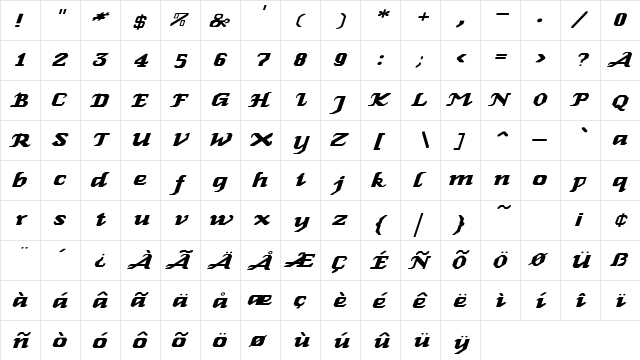
GenoaItalic-Wd Normal
Design Context for GenoaItalic-Wd Typeface
GenoaItalic-Wd is a composed and adaptable typeface that performs quietly and consistently across a wide range of design contexts. The dynamic lean of this cut emphasises speed and emphasis in any layout.
Pro Tip: Use GenoaItalic-Wd for emphasis, pull quotes, and subheadings where its slanted energy can add rhythm to the layout.